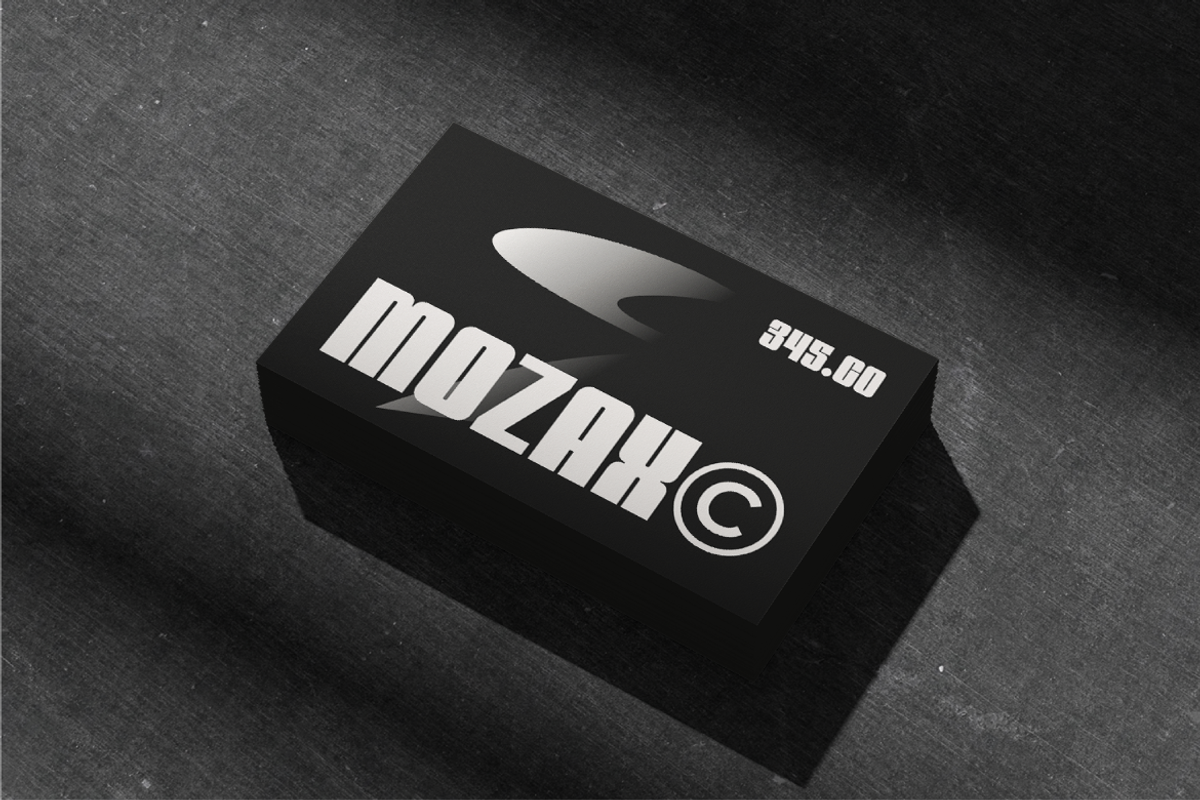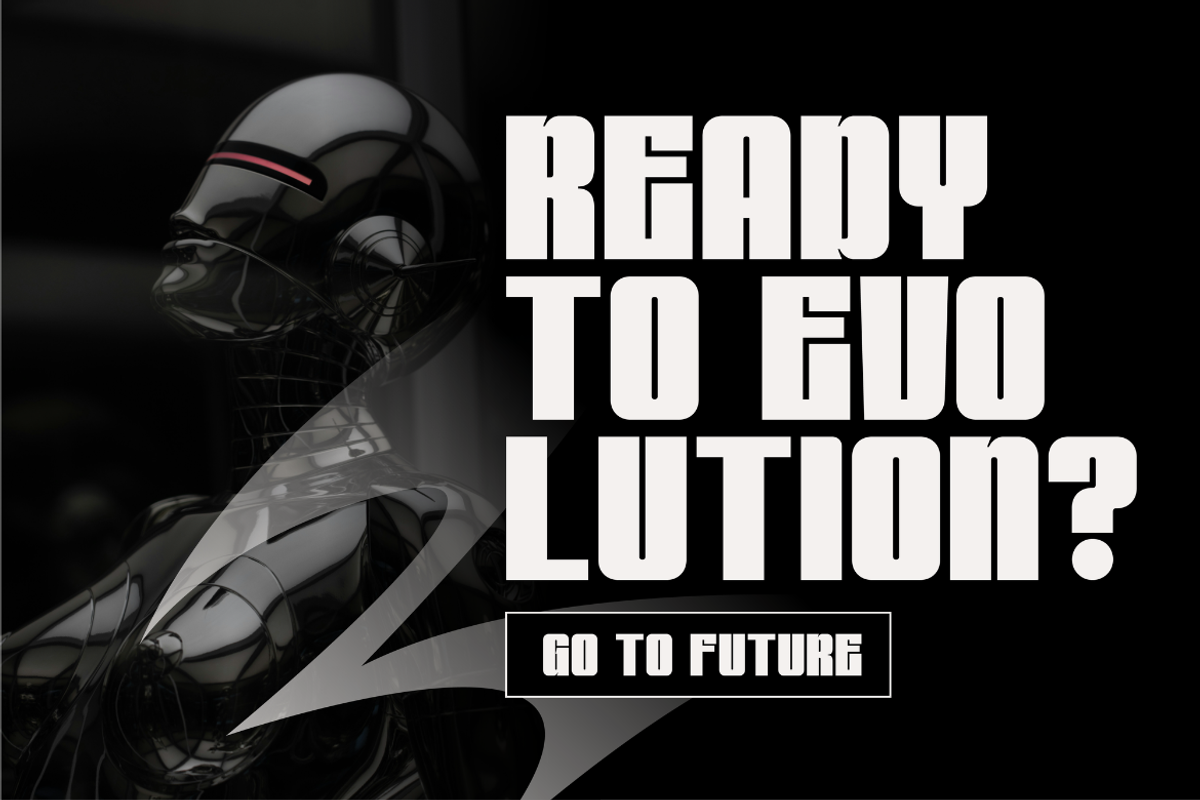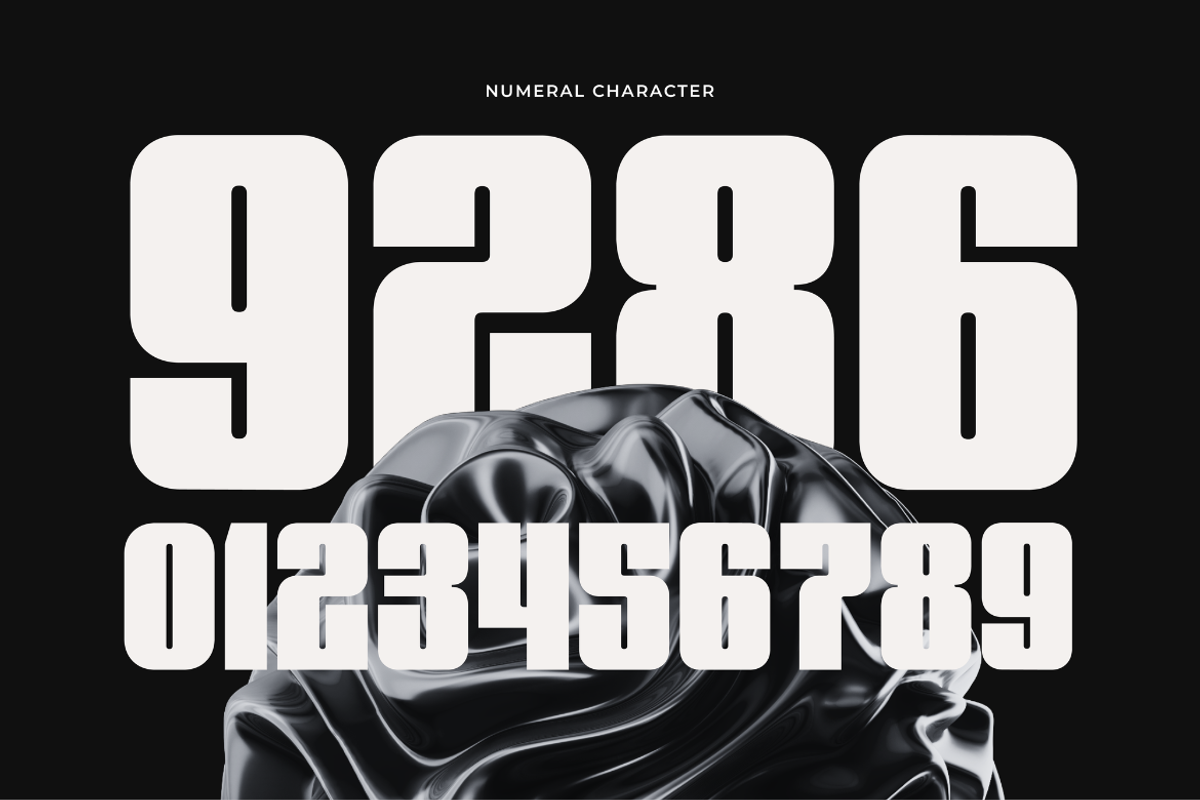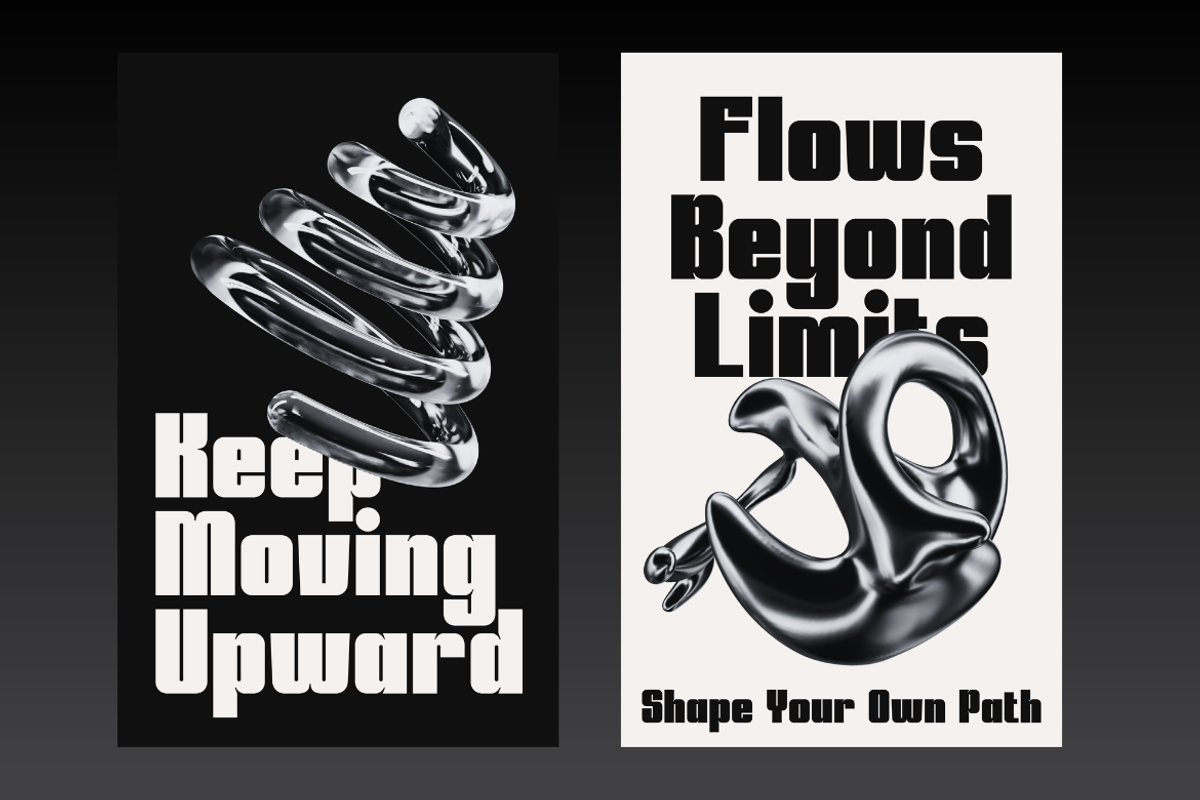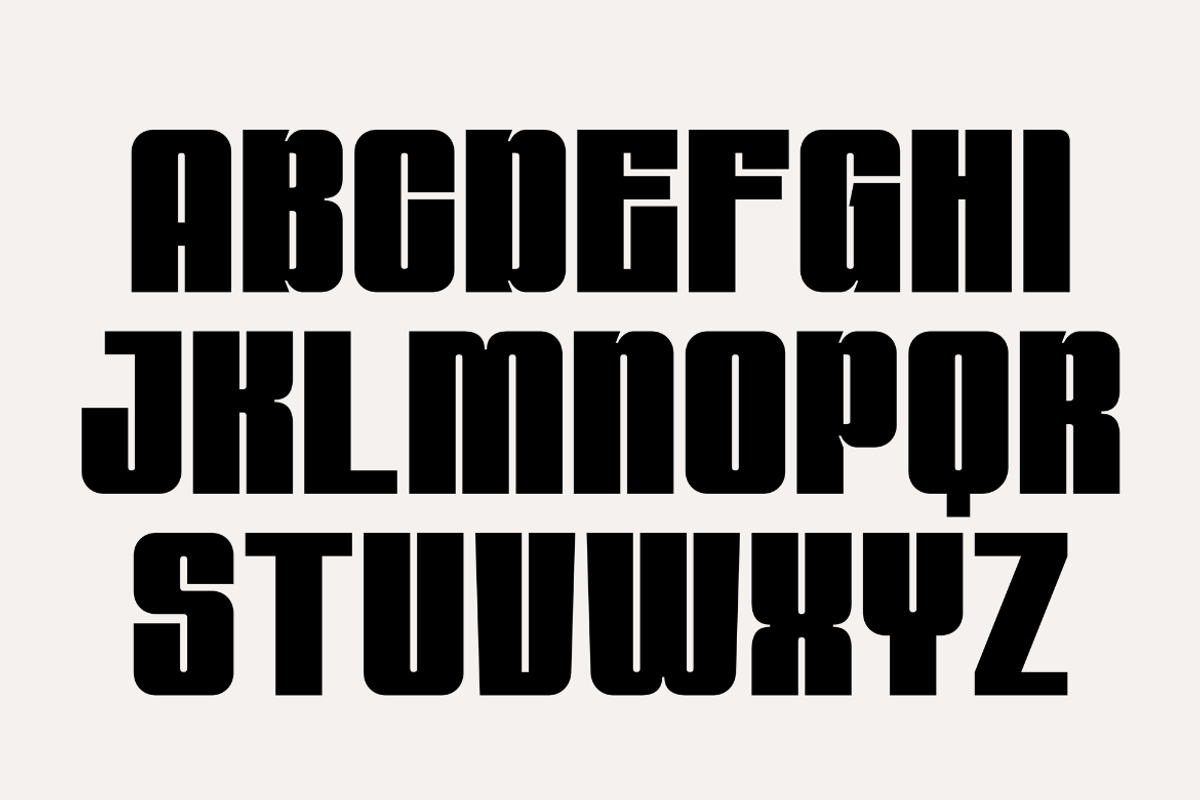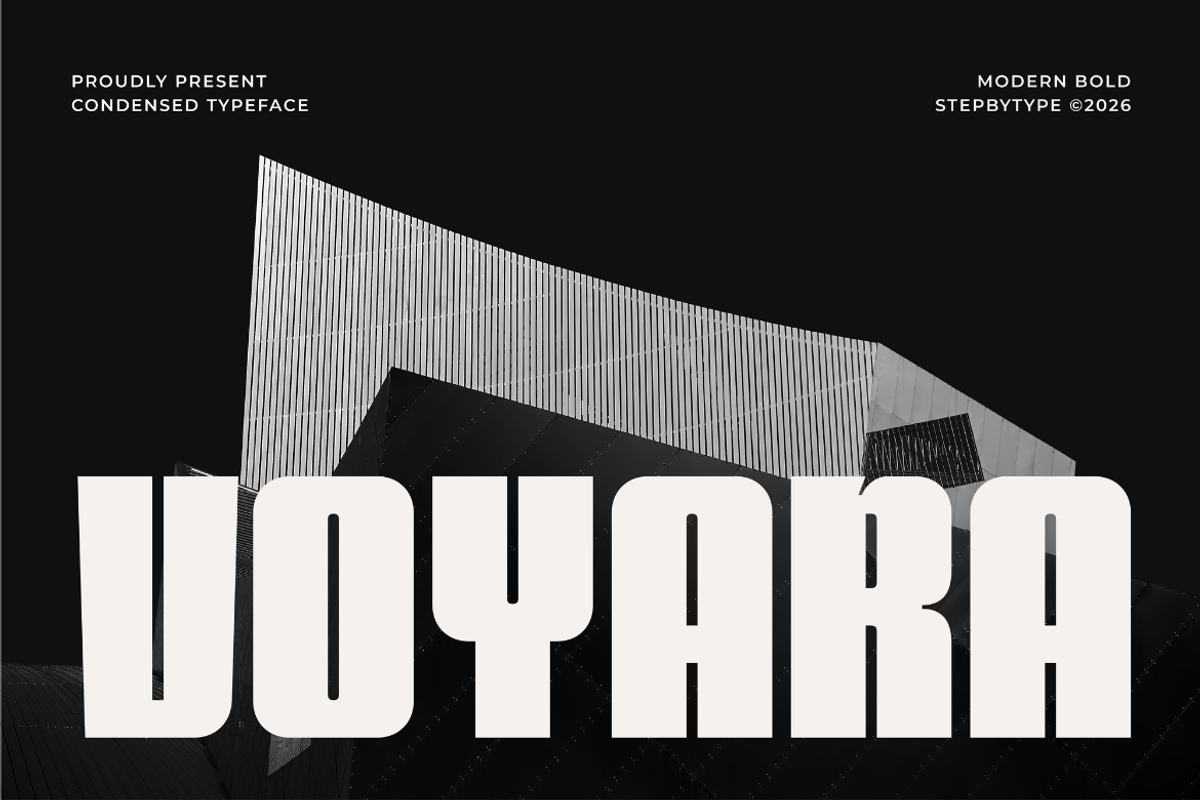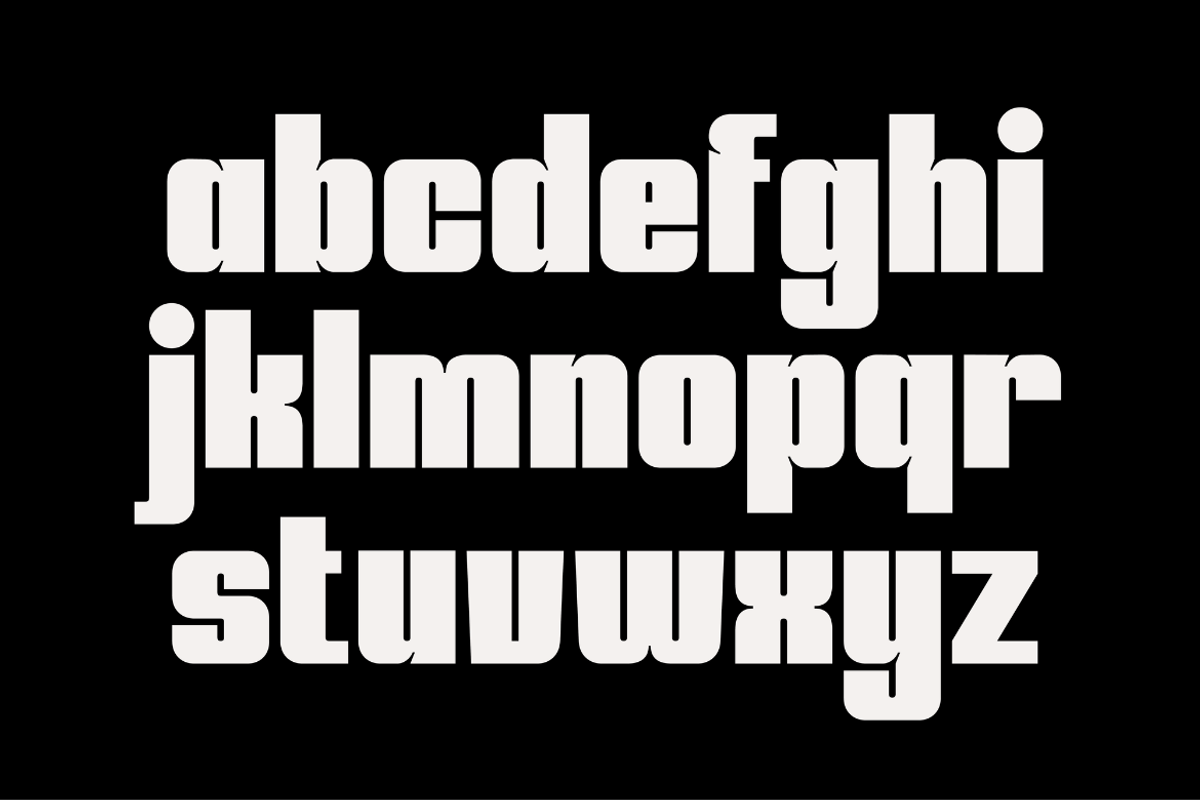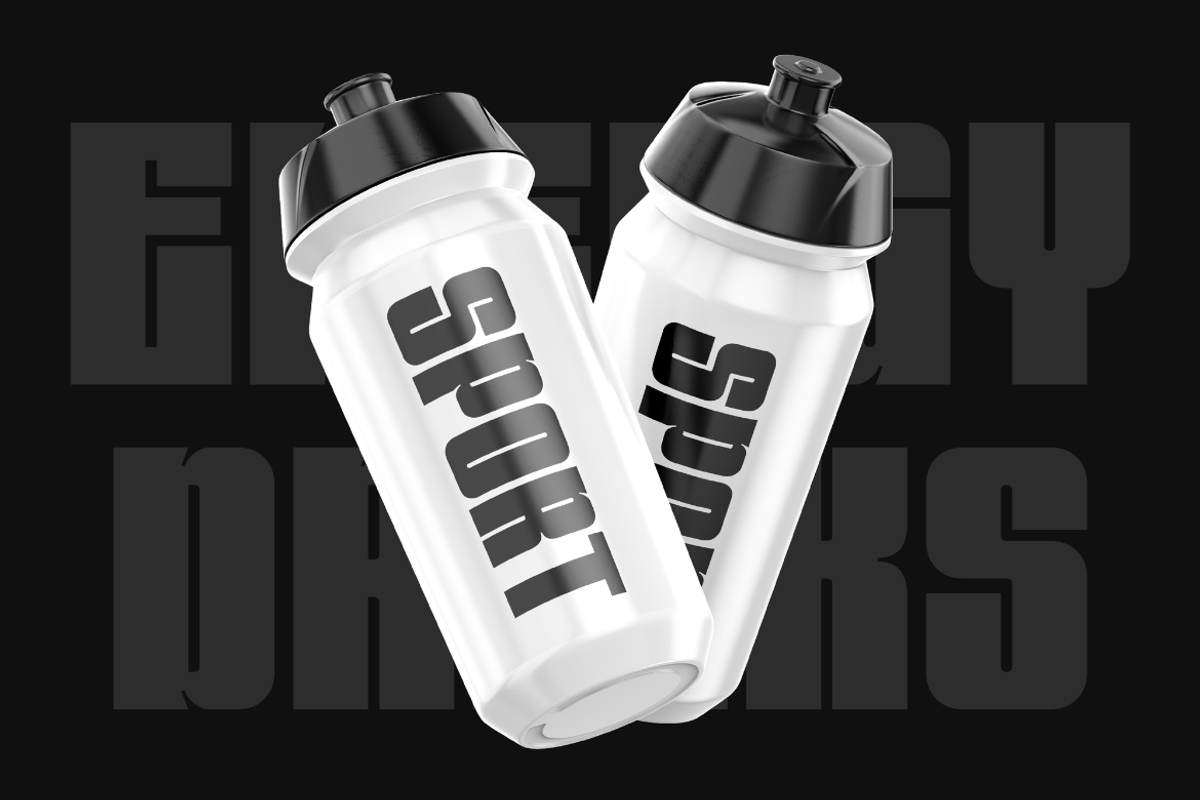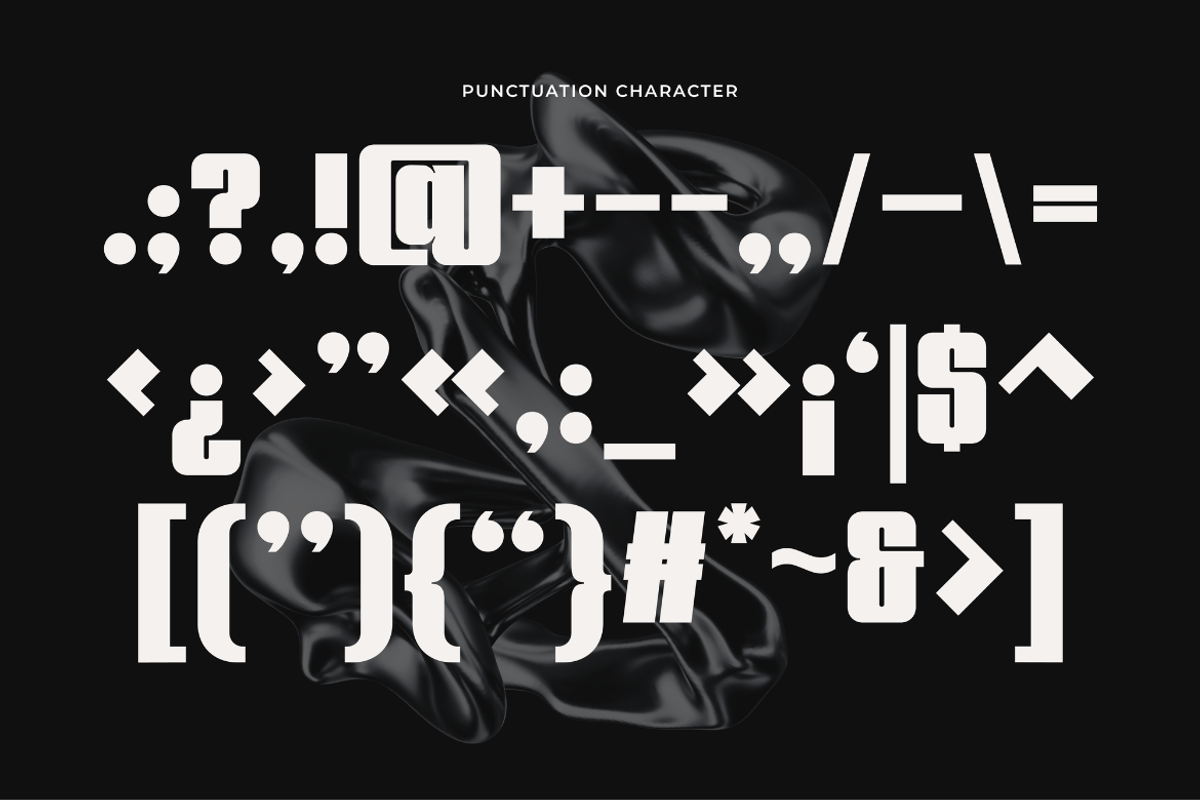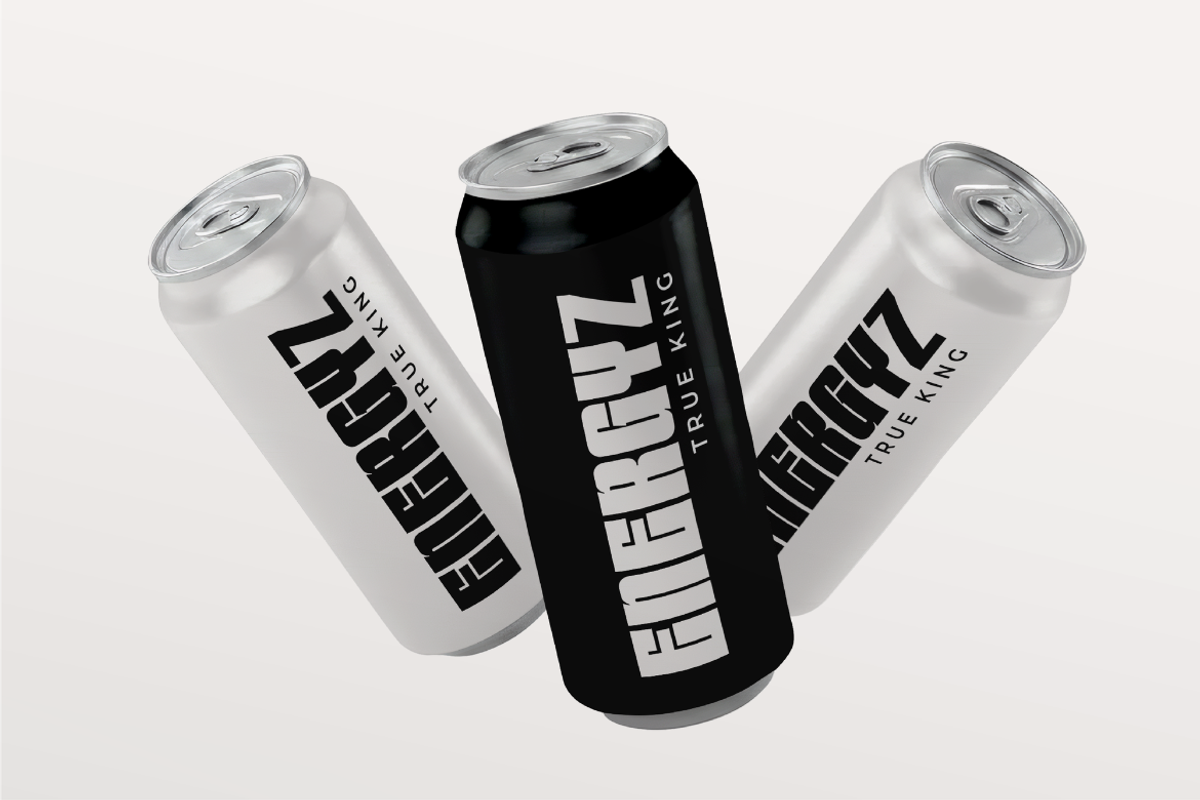
Voyara
Modern Bold Condensed Typeface is a strong, futuristic display font characterized by its tall, narrow proportions and heavy geometric structure. The condensed letterforms create a powerful visual impact while maintaining a clean and modern appearance. Its sharp edges, solid weight, and structured shapes give it a sense of technology, architecture, and urban sophistication.